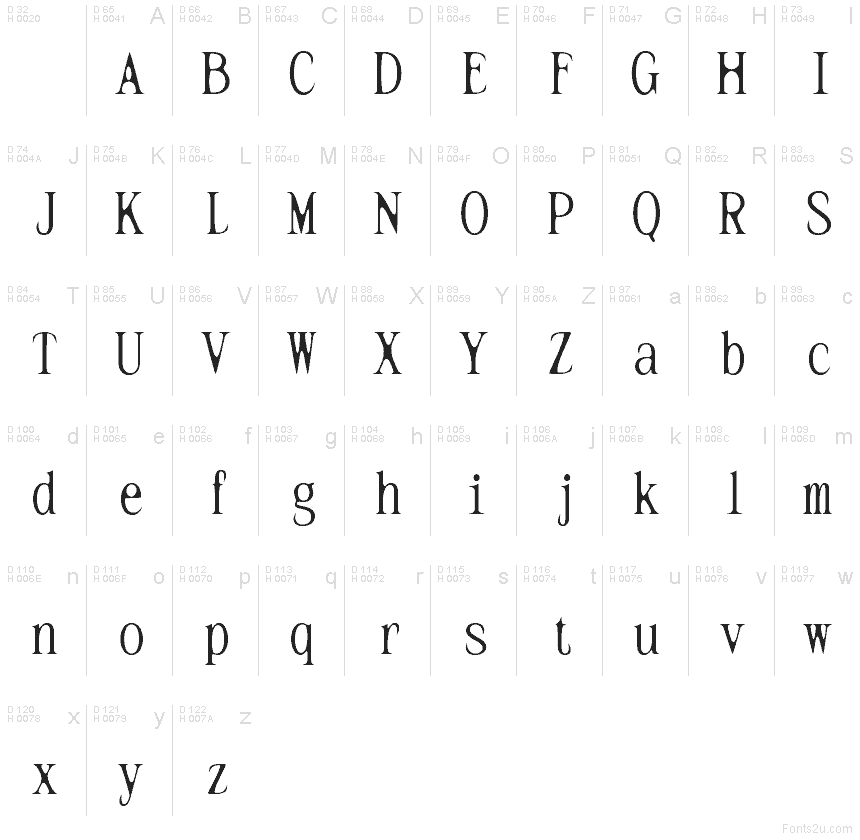
CS Gleda Mono Drawn font by Craft Supply Co. is a free regular condensed monospaced serif font. Its defining trait is the contrasty serif skeleton wrapped in sketchy, inky edges—think crisp verticals with soft, grainy bite at the curves. The monospaced rhythm keeps lines tidy while the drawn texture adds warmth, so headlines feel orderly but human.
Using CS Gleda Mono Drawn, you get a rare mix of editorial poise and artisanal grit that shines on packaging, zines, poster titles, coffee labels, boutique signage, and album art. The condensed width saves space without losing drama, and the uniform spacing keeps layouts steady. Pair this free font with a quiet grotesk sans for body copy, and tighten tracking slightly at large sizes for a taut, punchy look.